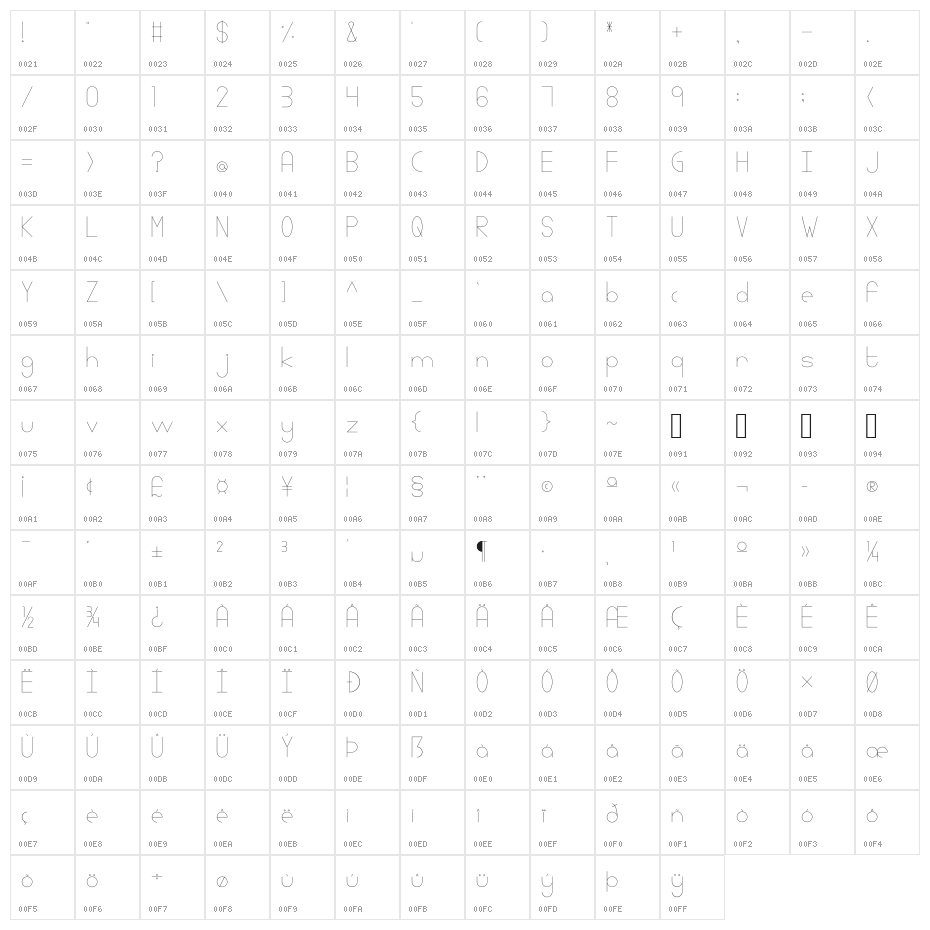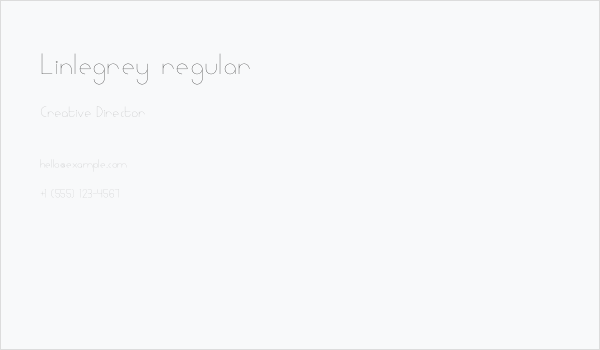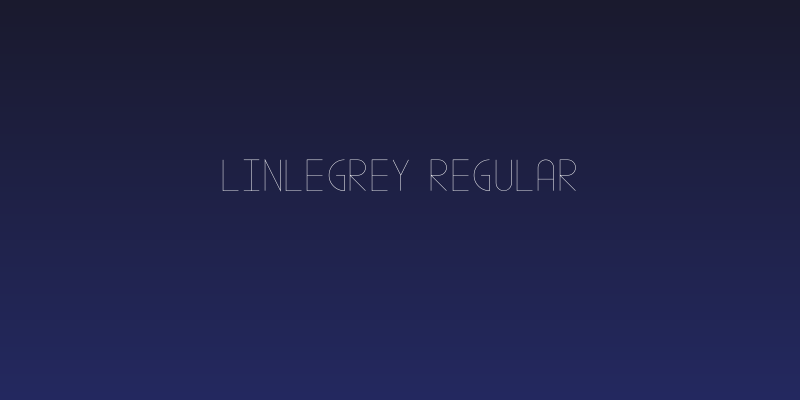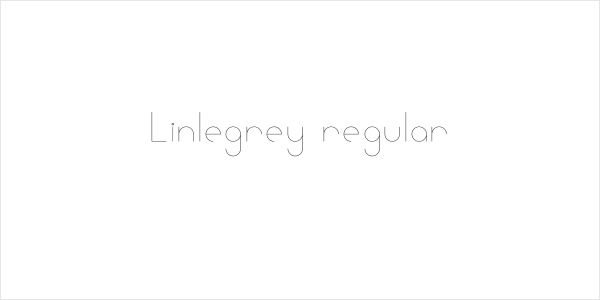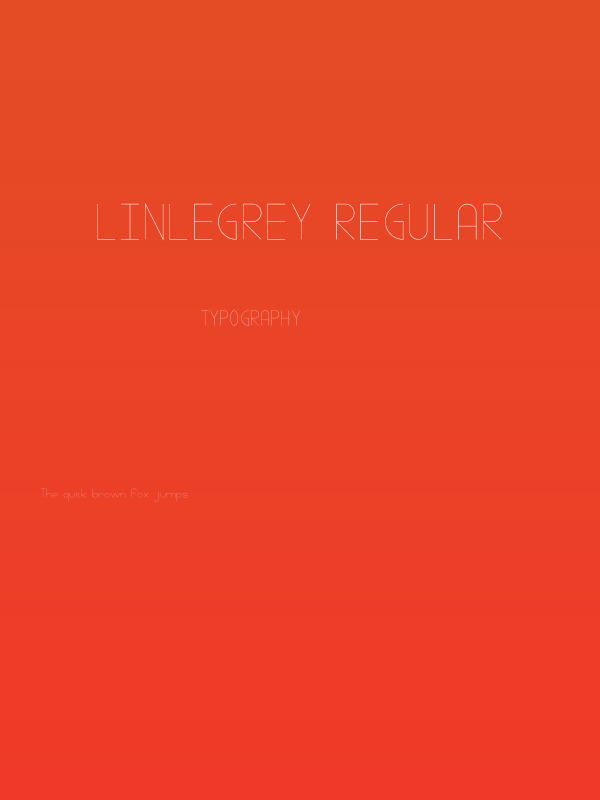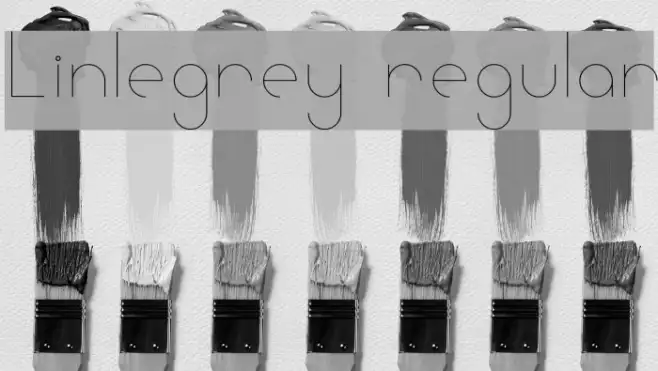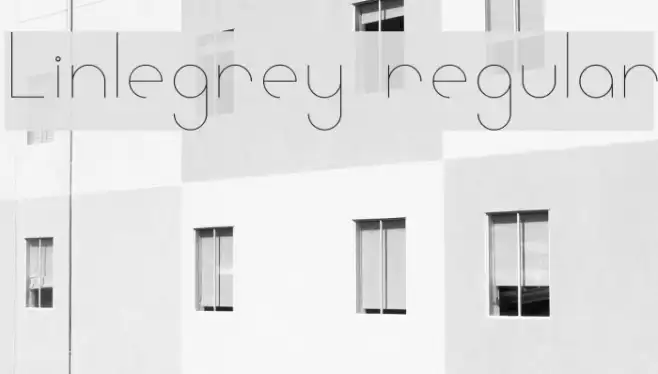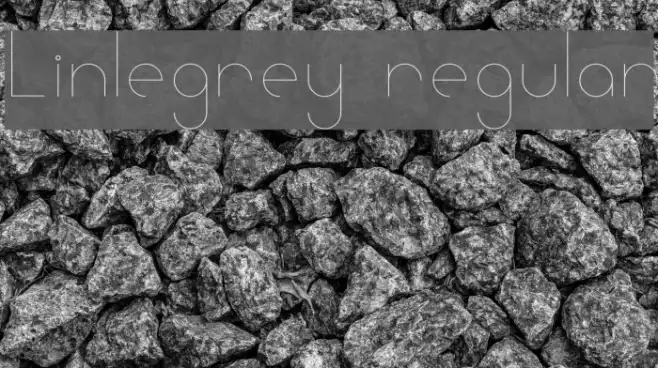
Linlegrey regular Font
Linlegrey regular Description
This font features a sleek, minimalist design with thin, uniform lines that give it a modern and elegant appearance. The characters are crafted with a geometric precision, showcasing a clean and airy aesthetic. The uppercase letters are tall and narrow, while the lowercase letters maintain a consistent height, contributing to a harmonious flow. The numerals and special characters are designed with the same thin strokes, ensuring a cohesive look across all elements. This font's simplicity and clarity make it versatile for various design applications.
| Use Case | Headlines, Logos, Digital interfaces |
| Proposed Projects | Ideal for modern branding, minimalist posters, elegant invitations, and digital interfaces. |